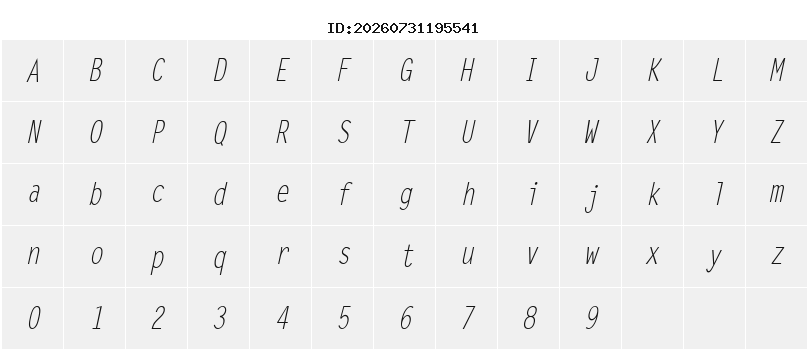
Lechter Condensed Preview
• Font Name: Lechter Condensed
• Full Font Name: Lechter Condensed Italic
About Lechter Condensed.ttf
Lechter Condensed.ttf is a modern, elegant sans-serif font designed for ultimate readability and visual harmony. Perfect for branding, headlines, web design, and print materials.